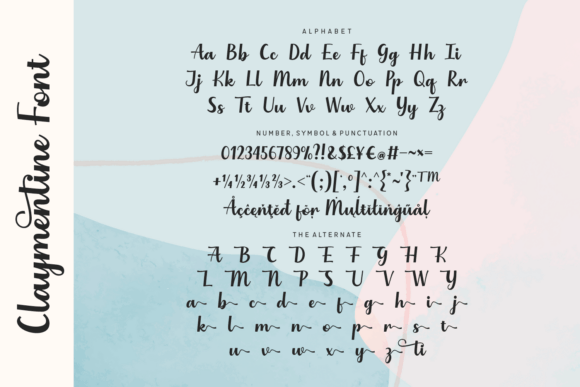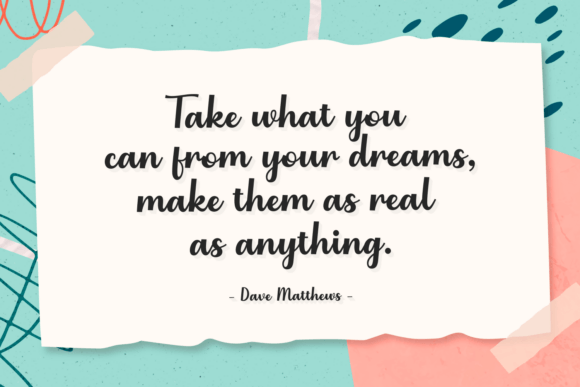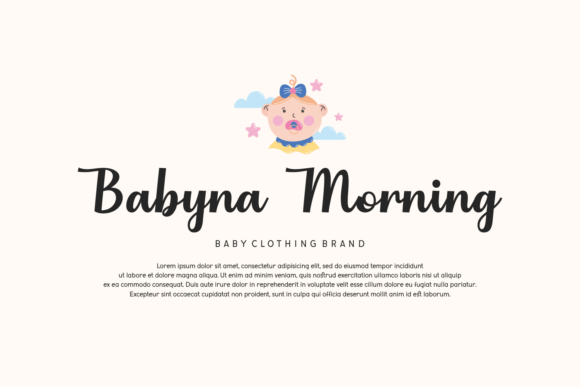
Introduction to Claymentine Font Font
Fonts play a crucial role in design, and the Claymentine Font font is a typeface that brings both character and versatility to any project. Whether you’re working on a branding project, a website, or a print design, the Claymentine Font font offers a unique style that can elevate your work.
Claymentine is a stylish and modern handwritten script font.
It features smooth, flowing letters that give a friendly and personal touch to your designs Perfect for invitations, greeting cards, and social media, Claymentine adds a creative and elegant feel to any project.
Key Features of Claymentine Font Font
Why Choose Claymentine Font Font?
The Claymentine Font font is more than just a typeface – it’s a design tool that helps you communicate your message with style and clarity. Its unique character set and versatile design make it suitable for a wide range of applications, from elegant invitations to bold headlines.
With its carefully crafted letterforms and balanced proportions, the Claymentine Font font ensures readability and visual appeal across all mediums.
What makes Claymentine Font font special?
The Claymentine Font font stands out with its unique design, exceptional readability, and versatility across various design applications.